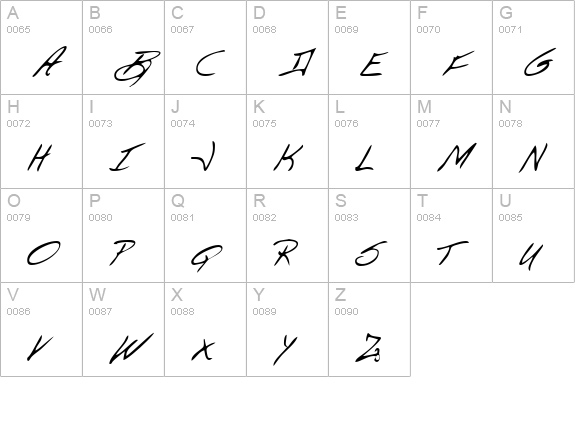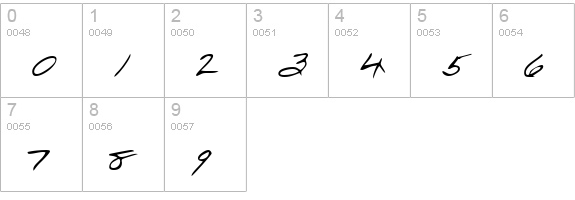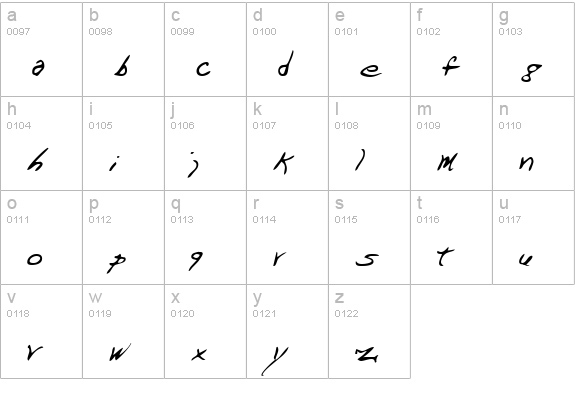
MannysHand Regular Font Details
MannysHand Regular is the standard, neutral variant in the MannysHand typeface family \xE2\x80\x94 well suited to general body text, paragraphs, and standard typographic work.
MannysHand Regular is a charming and versatile font that captures the essence of handwritten script with a touch of elegance. Its smooth and flowing strokes give each letter a unique and organic feel, making it perfect for a wide range of creative projects. This delightful font is full of character and personality, making it ideal for adding a personal touch to invitations, greeting cards, logos, branding materials, and more. Its graceful curves and gentle slant create a sense of movement and authenticity, allowing your designs to stand out from the crowd. One of the most appealing aspects of MannysHand Regular is that it is freely available to download at FontsMarket.com. This means that you can enjoy all its wonderful features without any cost, making it a fantastic option for designers, hobbyists, and anyone looking to add a touch of elegance to their projects without breaking the bank. With its wide range of international characters and ligatures, MannysHand Regular ensures that your message can be communicated clearly and beautifully, no matter the language. Its versatility and legibility make it a practical choice for both print and digital applications, ensuring that your designs look stunning on any medium. Whether you're designing wedding invitations, creating eye-catching posters, or adding a personal touch to your blog, MannysHand Regular is the perfect font to bring your ideas to life. With its free availability at FontsMarket.com, there's no reason not to add this charming and versatile font to your collection. Start exploring the endless possibilities of MannysHand Regular today and watch your designs come to life with elegance and style.